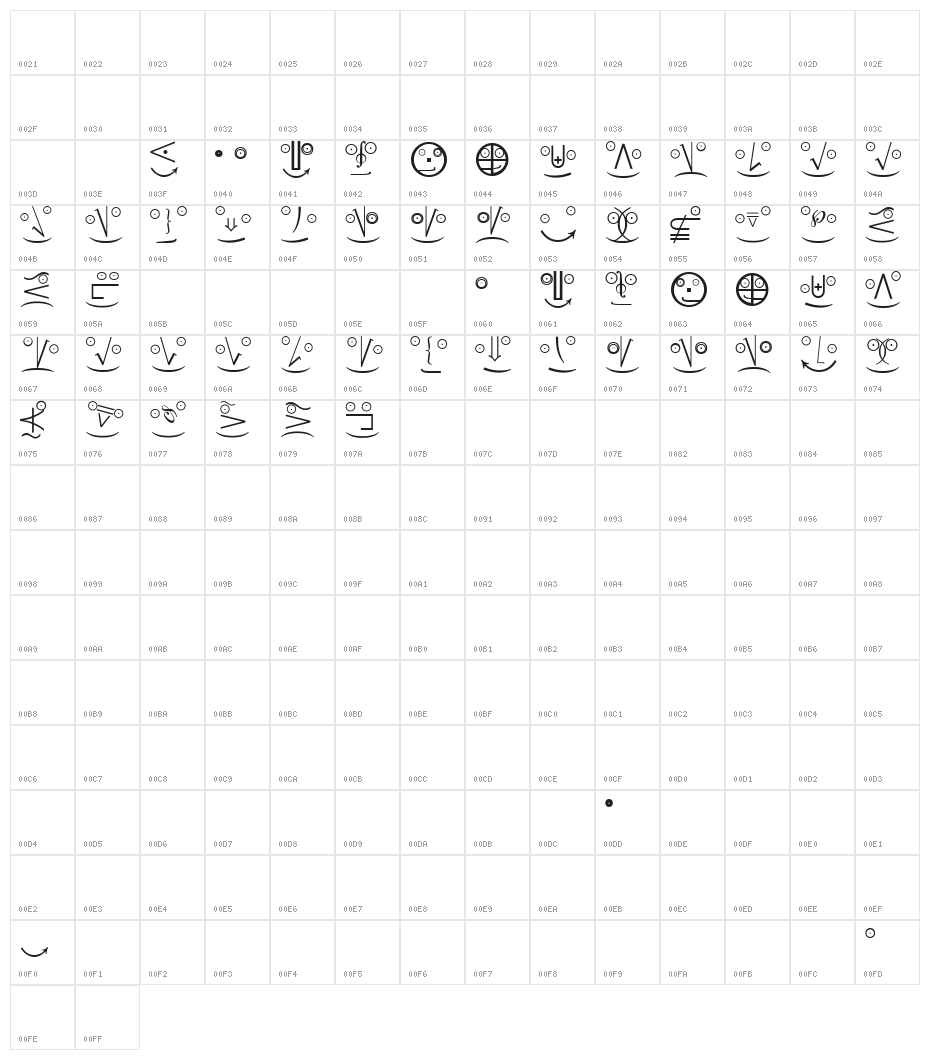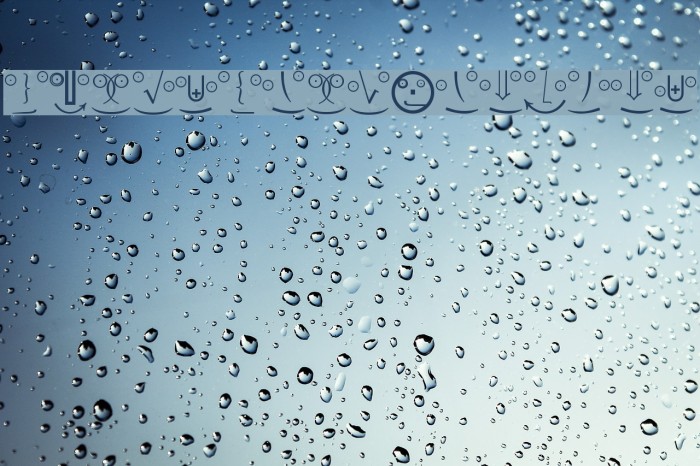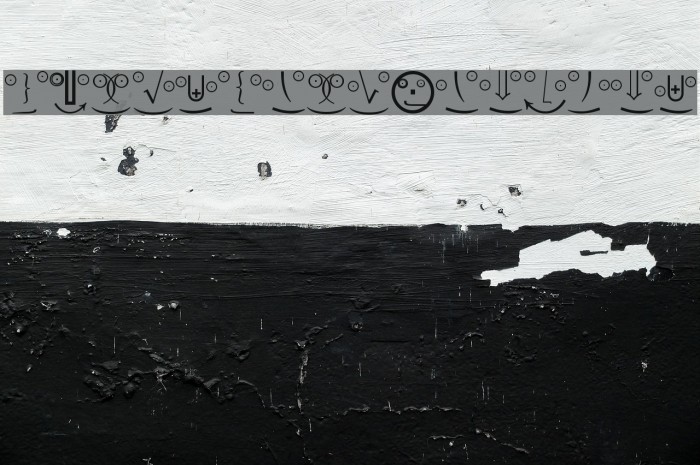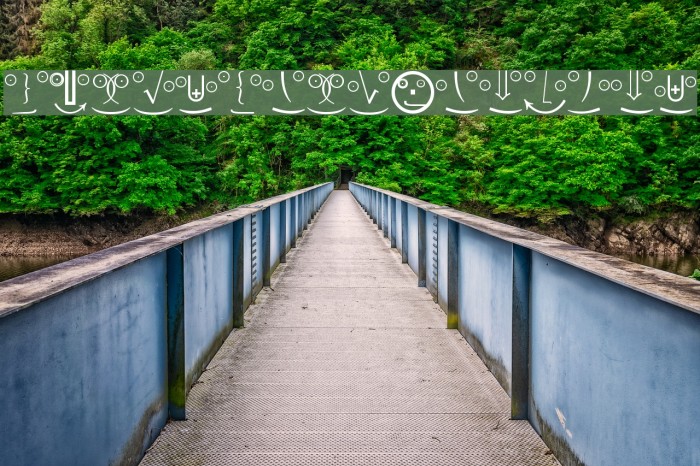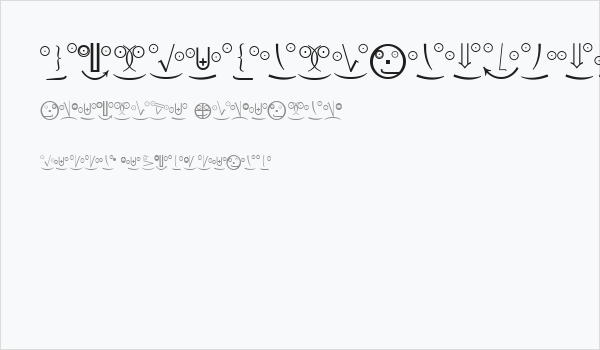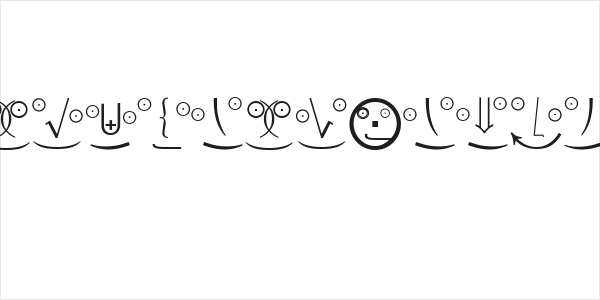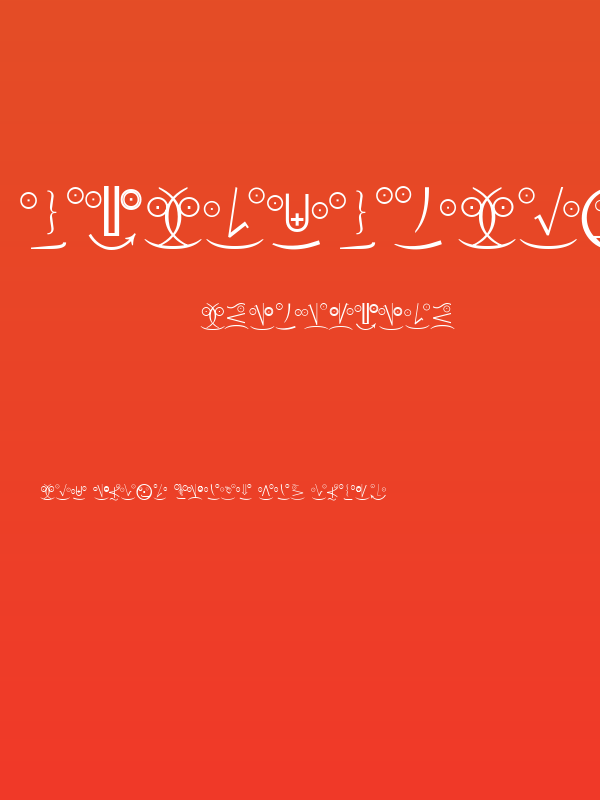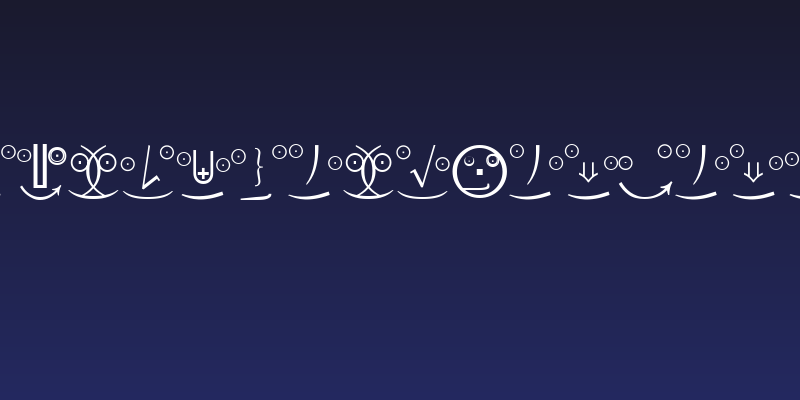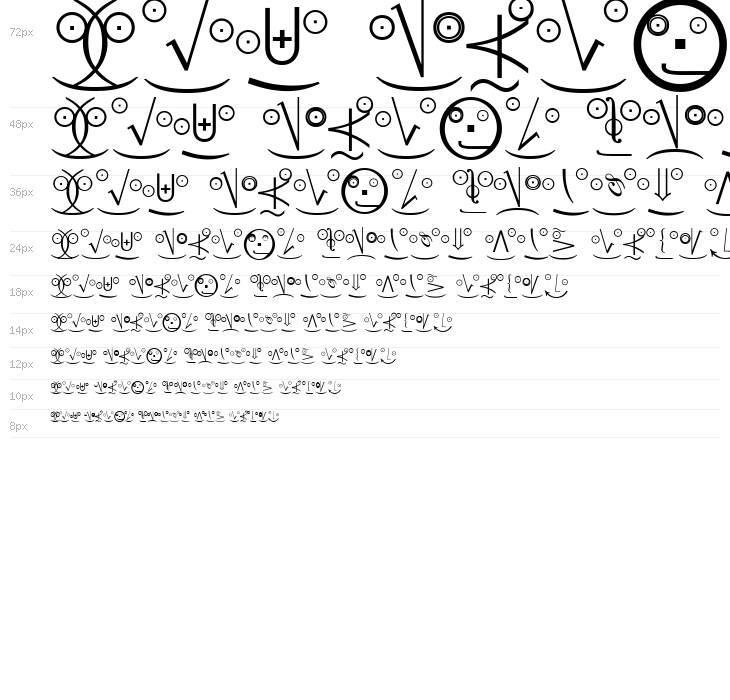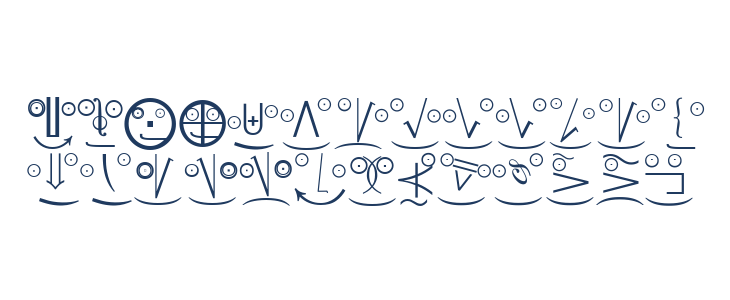
MathEmoticonsOne Font
MathEmoticonsOne Description
This is not a traditional font but rather a collection of mathematical symbols and emoticons combined to create a playful and whimsical set of characters. Each character appears to be a unique combination of mathematical symbols such as circles, lines, and arrows, arranged to resemble faces or expressions. The overall appearance is highly decorative and unconventional, making it suitable for creative and informal contexts. The characters are evenly spaced, with a consistent line thickness that provides a uniform look across the set. The style is modern and abstract, with a focus on visual interest rather than readability.
| Use Case | Logos, Digital Art, Creative Projects |
| Proposed Projects | Ideal for creative projects, such as graphic design, digital art, or playful branding materials. |